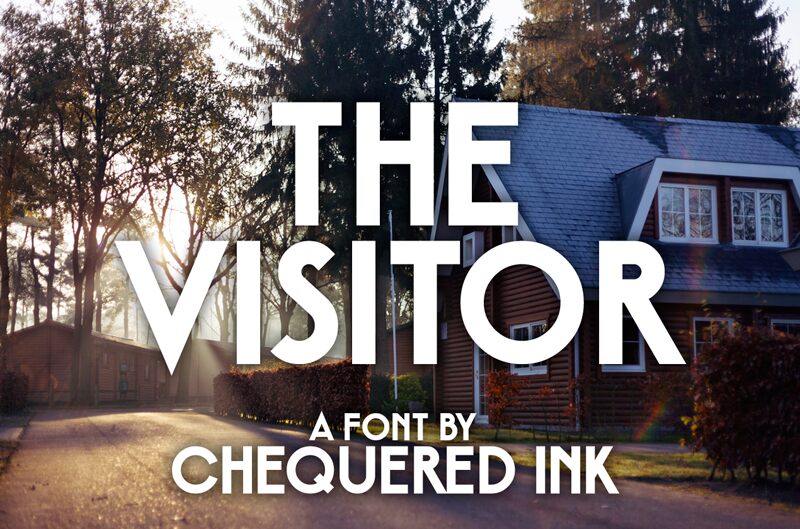
The Visitor font by Chequered Ink is a free sans serif font with impactful, contemporary geometric aesthetics. With a unique blend of strength and cleanliness, the font is immediately captivating to the viewer. The framework is visualized with a minimalistic approach making its beauty accessible and versatile. Strong, but simple, The Visitor suits a wide variety of personal design projects.
Design your logo, typography art, or headline in The Visitor, guaranteed of its ability to reach your target. Spice up your gallery, social media, posters, flyers, or cover designs, or new and old branding for a serious refreshing or eye-catching effect.